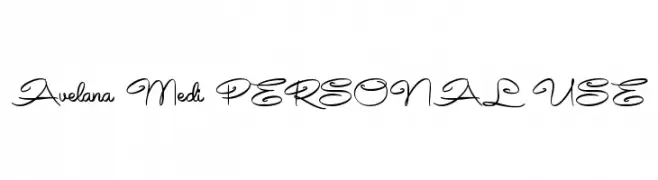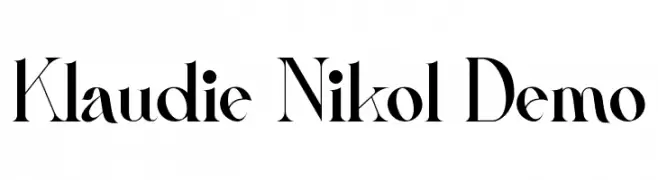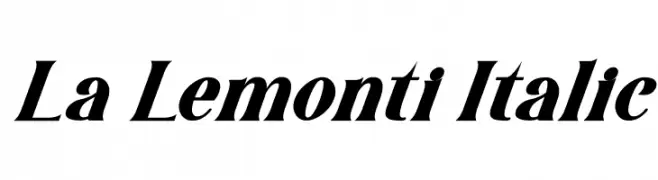
A monospaced font with a barcode-like design, featuring characters made of vertical lines.
An elegant script font with flowing, interconnected letters and decorative swirls.
A sleek, modern, and condensed light italic font with elegant curves.
A bold, rounded, and modern font with a playful and approachable style.
A cursive font with elegant, flowing uppercase letters and casual, handwritten lowercase letters.
A high-contrast, modern-classic font with elegant elongated uppercase and creative lowercase letters.
A bold, italicized font with a modern and dynamic style.
A festive, elegant cursive script with bold, high-contrast strokes.